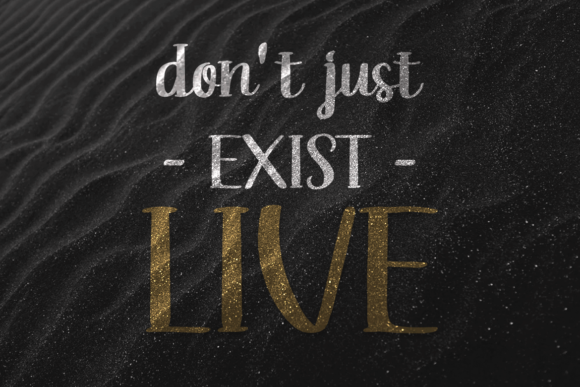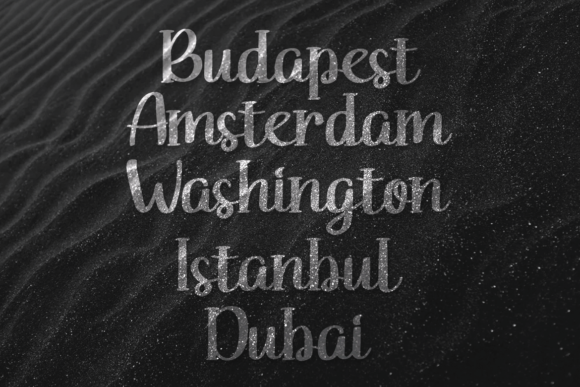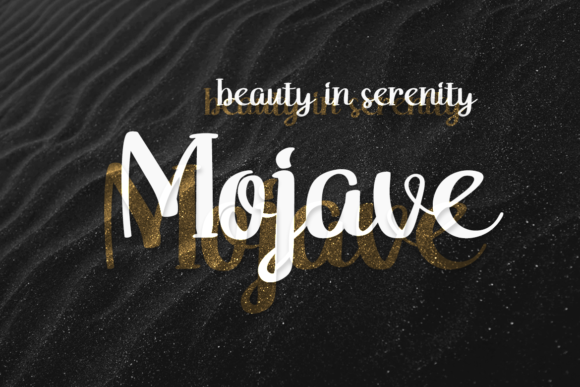
Introduction to Rasia Font
Rasia is a sweet and flowing handwritten font.
Fall in love with its incredibly versatile style and use it to create gorgeous wedding invitations, beautiful stationary art, eye-catching social media posts, and much more .